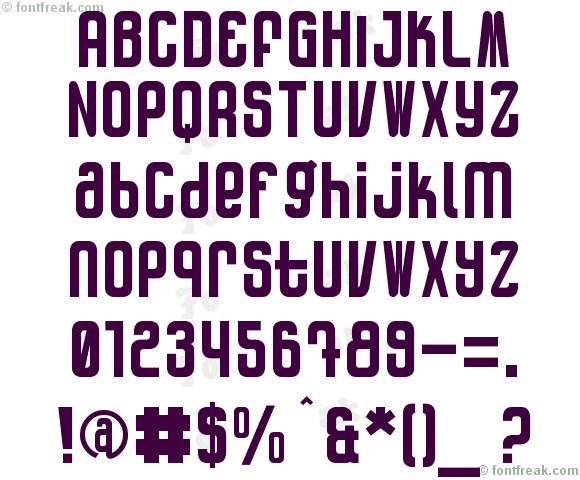
Patinio Rotulo
About Patinio Rotulo
Patinio Rotulo, designed by Factor Vector, is a striking display typeface that combines modernity with a bold aesthetic. This font falls into the category of decorative typefaces, characterized by its unique, eye-catching appearance. The visual style features a robust stroke weight, ensuring that each letter stands out prominently. The font exhibits minimal contrast, creating a uniform look that enhances legibility, while the spacing is thoughtfully crafted to maintain a balanced and cohesive flow.
Ideal for a variety of creative projects, Patinio Rotulo shines in applications such as movie posters, where its strong presence can capture attention and convey a sense of excitement. It also works beautifully for branding materials, including logos and signage, helping small business owners establish a memorable identity. Additionally, this font is a great choice for restaurant menus, providing a modern flair that can elevate the dining experience. Content creators will find it particularly useful for social media graphics, where it can add a bold touch to promotional materials.
The target audience for Patinio Rotulo includes graphic designers, small business owners, and content creators looking to make a statement with their typography. Its versatility makes it suitable for both digital and print applications, allowing users to unleash their creativity across various platforms.